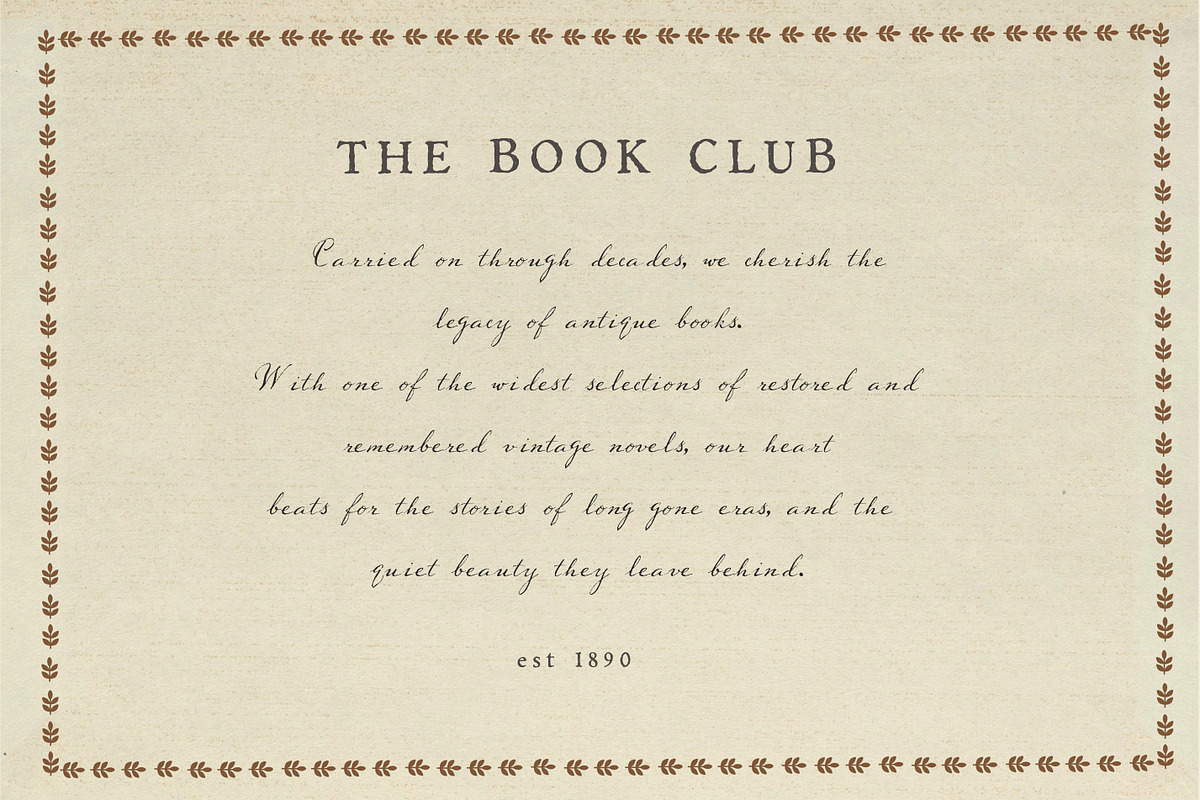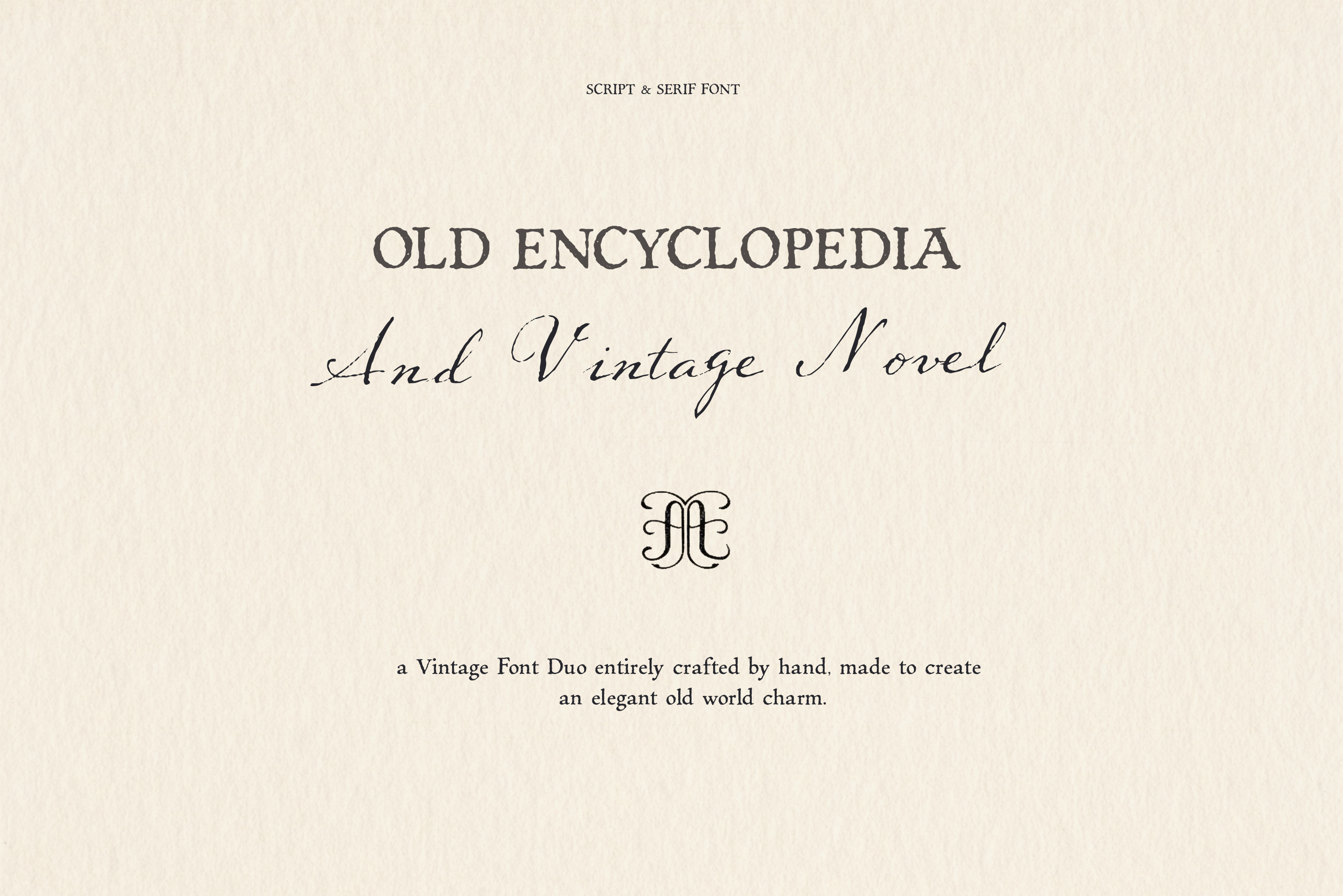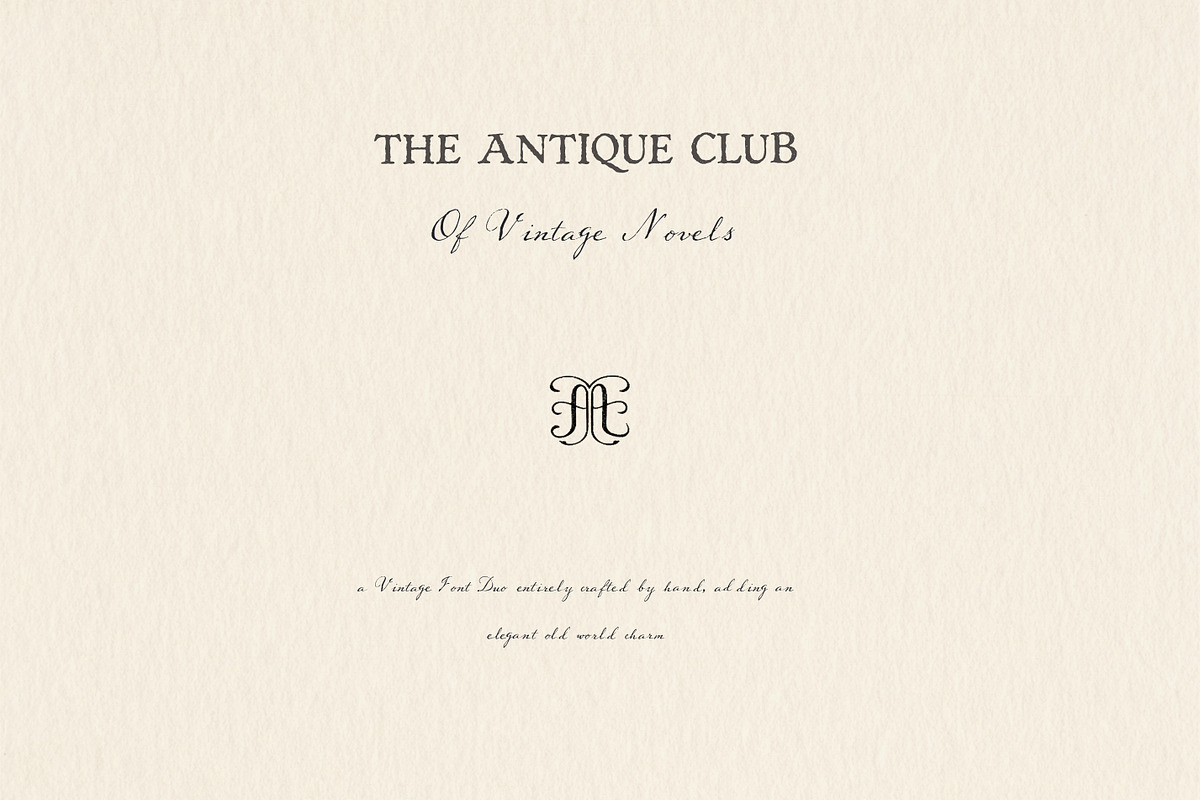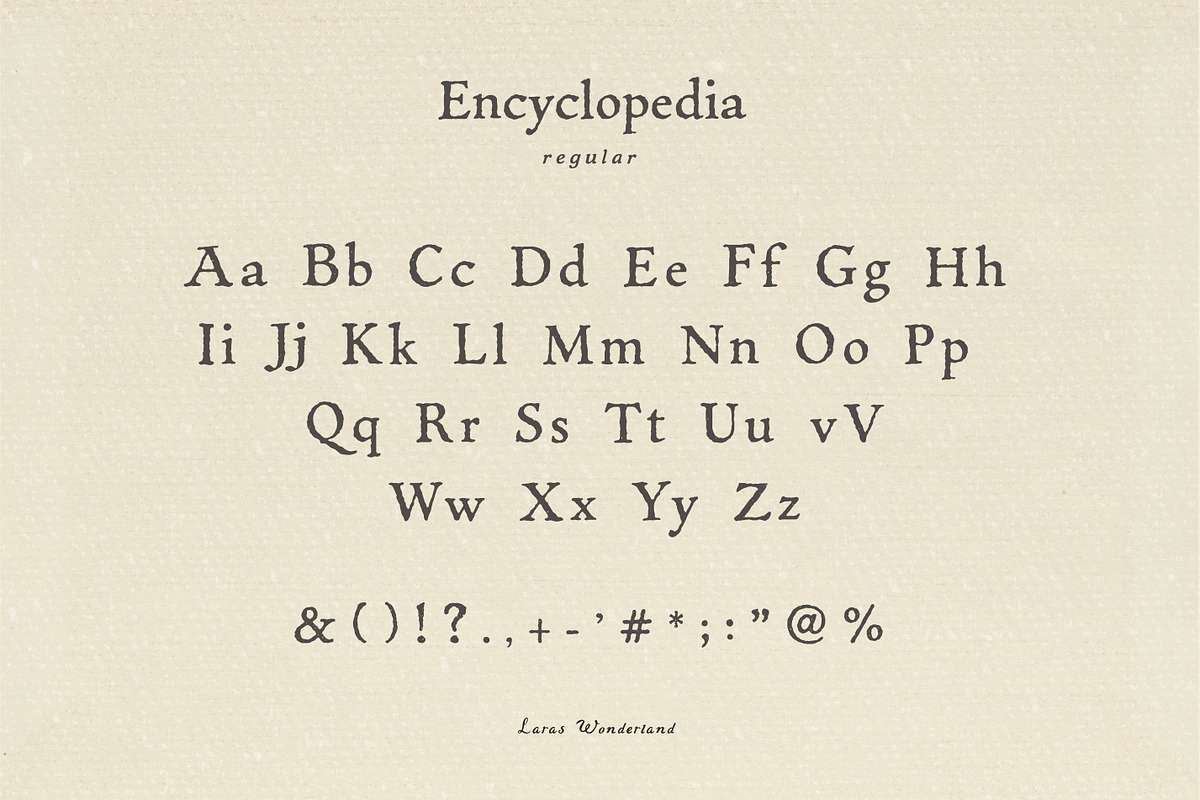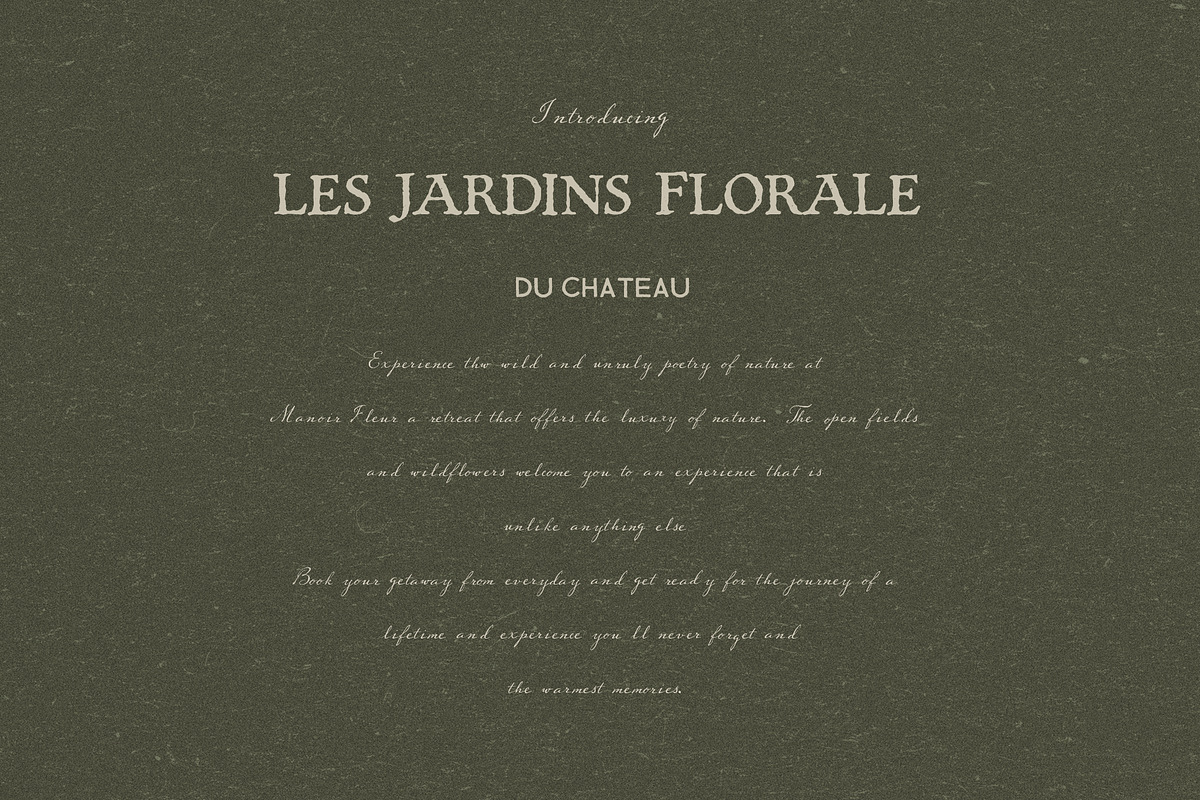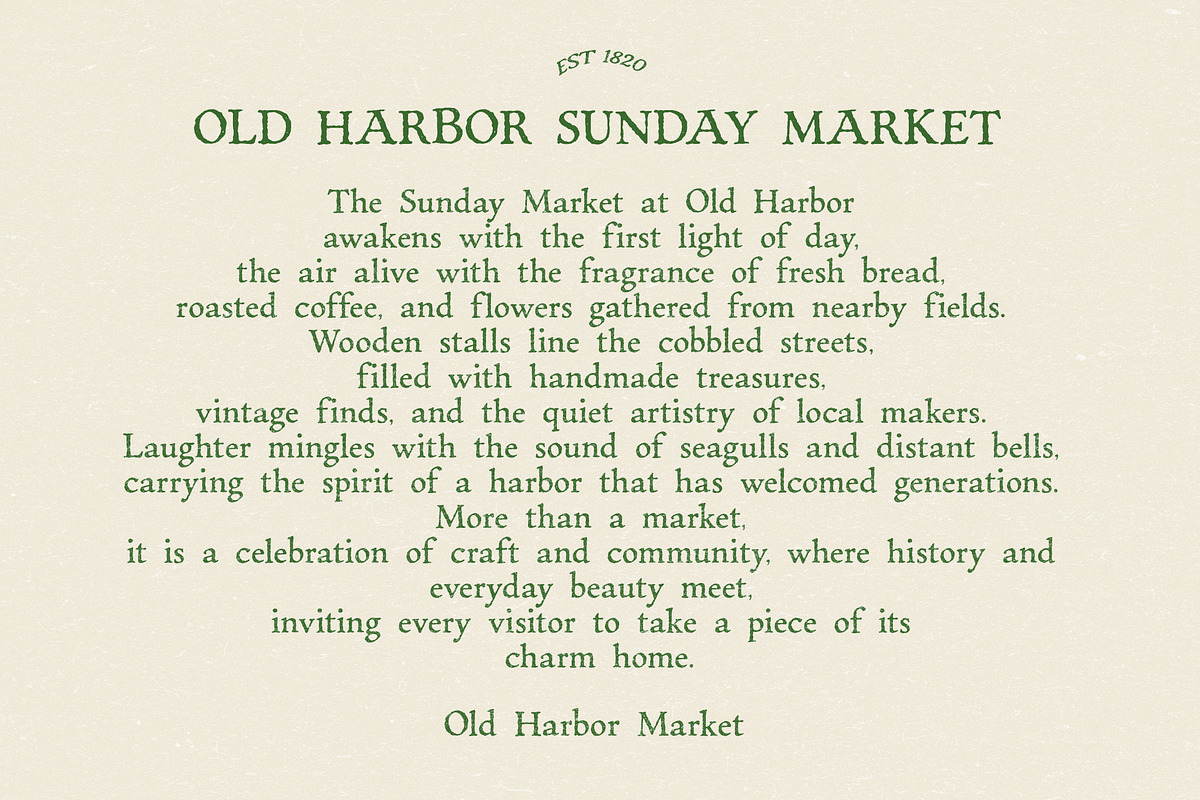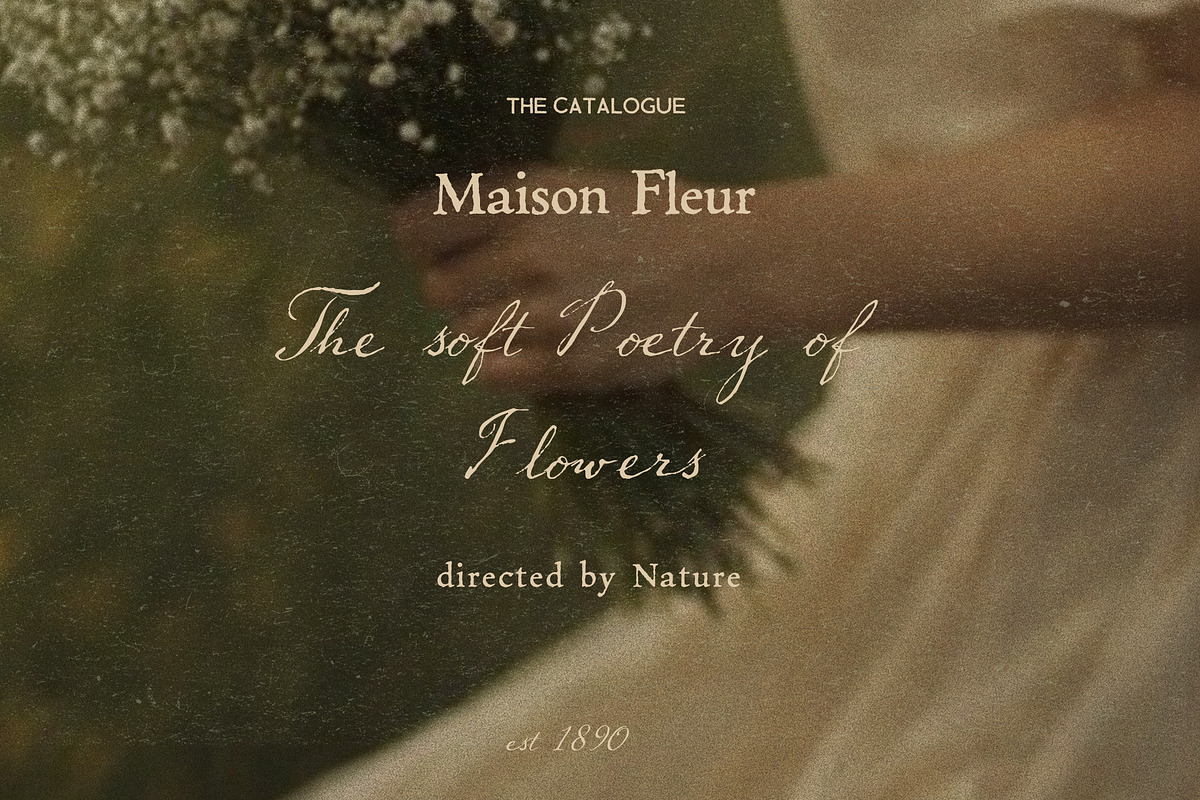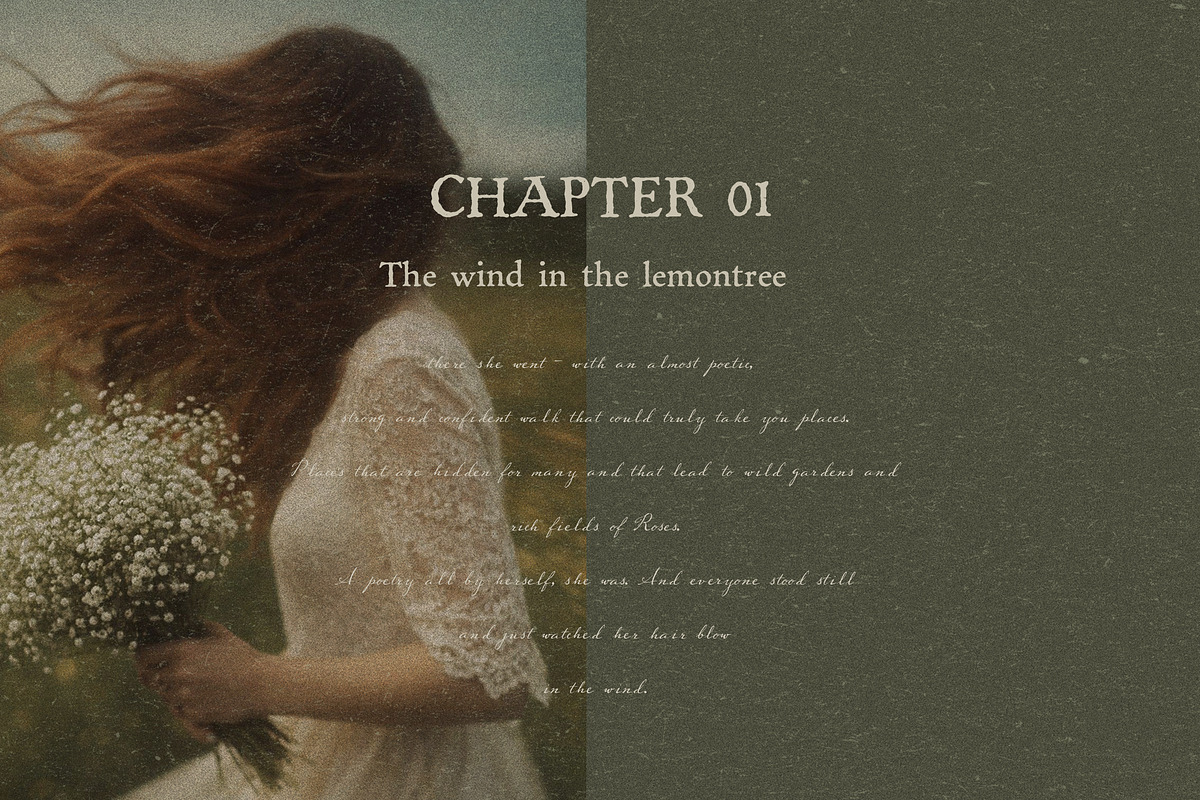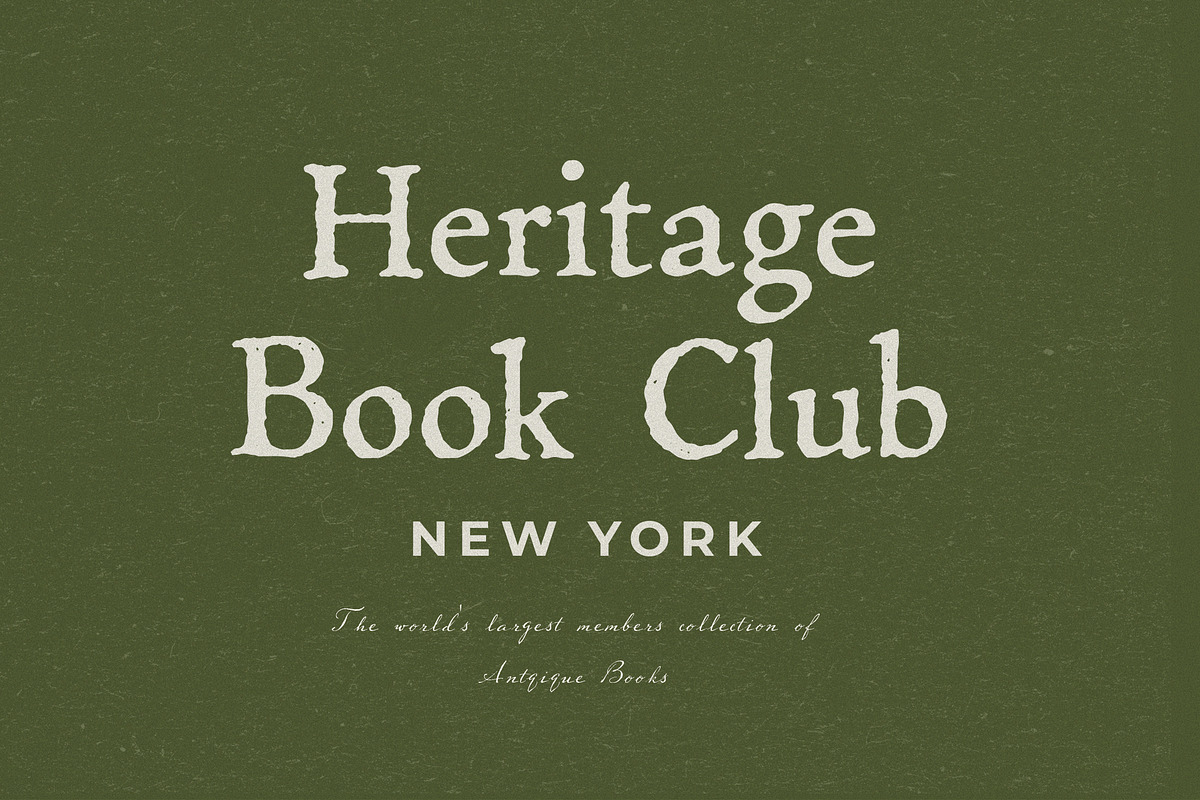
Vintage Serif & Antique Script Font
Welcome an old world font duo that is handcrafted and adds poetry to your creations.
Vintage Novel is a handwritten script font with an antique, poetic character, perfect for branding, book-inspired designs, packaging, and timeless editorial work.
Paired with Encyclopedia, a vintage typewriter-style serif, this duo brings a classic literary feel to logos, invitations, posters, and creative projects that call for heritage and authenticity.
Both fonts come with authentic texture, almost like they've just been written with wet ink on craft paper. Add this duo to your work for an instant lively look!